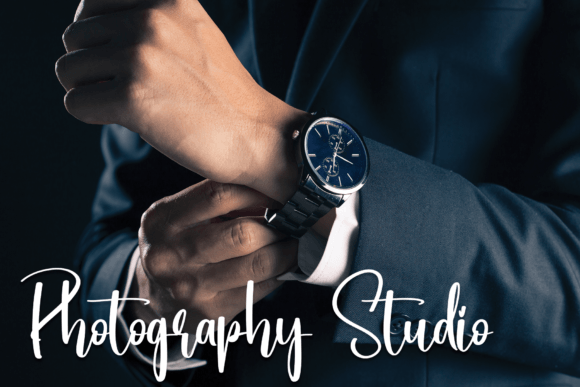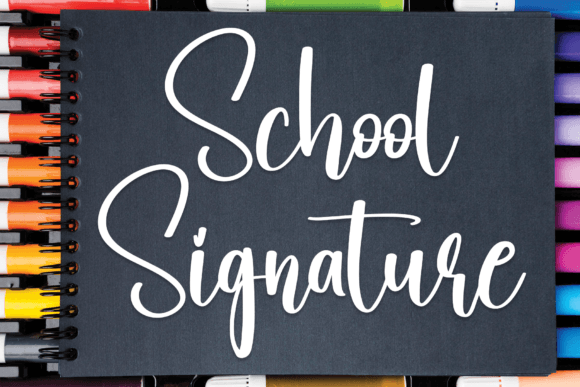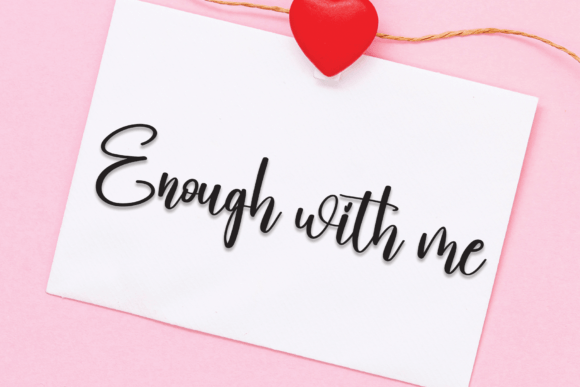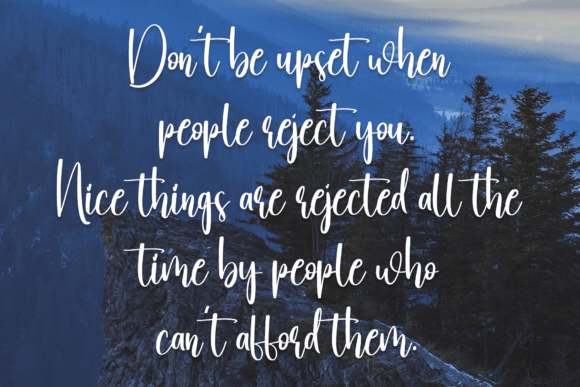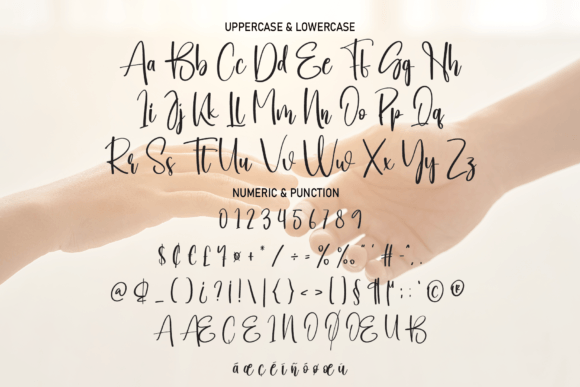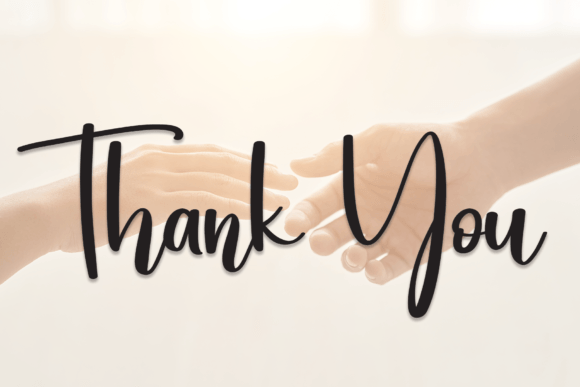
Be Kind Font
The Be Kind Font Download is a sweet and romantic handwritten script created to bring warmth and sophistication to every project. With elegant curves and smooth strokes, it adds a delicate charm that is both versatile and timeless. Whether you’re working on wedding invitations, stationery, or digital designs, Be Kind makes your work stand out with elegance.
A Romantic Script Typeface
The Be Kind script font blends modern handwritten details with classic calligraphic influences. As a result, it feels professional while keeping a personal touch. Furthermore, its balanced flow ensures adaptability for both personal and commercial projects.
Ideal for Invitations and Stationery
The Be Kind Font is an excellent choice for wedding invitations, thank-you cards, seasonal notes, and greeting cards. Because of its elegant handwritten style, every piece of stationery feels heartfelt. In addition, it transforms even simple layouts into memorable keepsakes.
Branding and Logo Design with Be Kind Font
Typography sets the tone for branding, and the Be Kind handwritten font is perfect for boutique logos, packaging, and lifestyle businesses. Its romantic yet polished style communicates creativity and reliability, making it an excellent fit for fashion, beauty, and handmade brands.
Posters, Editorials, and Creative Displays
The Be Kind Font Download shines in posters, book covers, magazines, and inspirational quotes. It maintains readability while delivering handwritten elegance. Consequently, it becomes an ideal choice for both print and digital media.
Digital Content and Social Media Design
In today’s fast-paced digital world, fonts must stand out. The Be Kind typeface integrates smoothly into Instagram posts, YouTube thumbnails, Pinterest graphics, and blogs. Because of its romantic handwritten flow, it makes digital projects more engaging and stylish.
Why Designers Choose Be Kind Typeface
Designers love fonts that balance creativity with readability. The Be Kind handwritten script provides timeless beauty without losing clarity. Moreover, its versatile design ensures it remains useful for future creative trends.